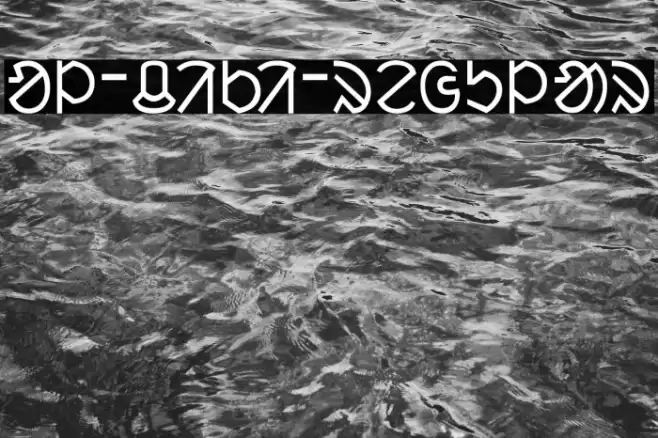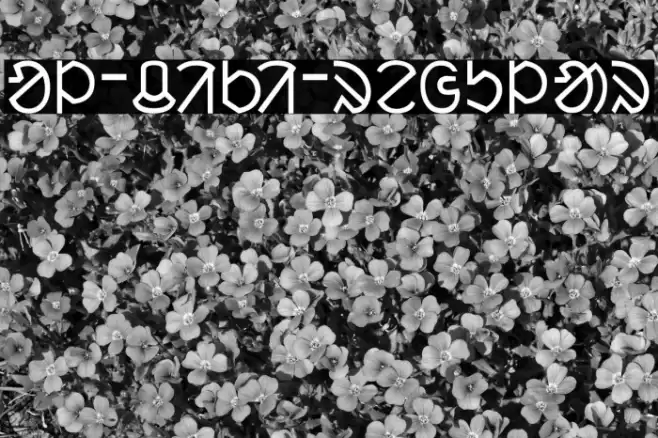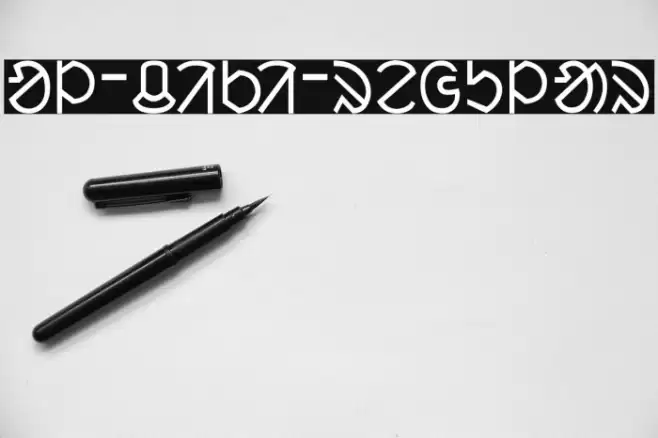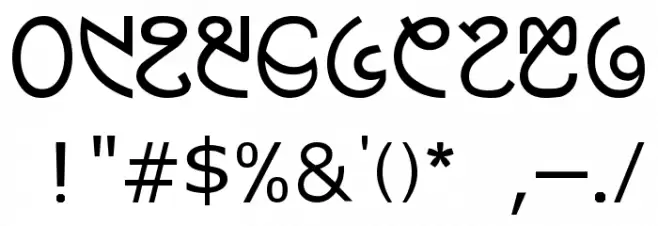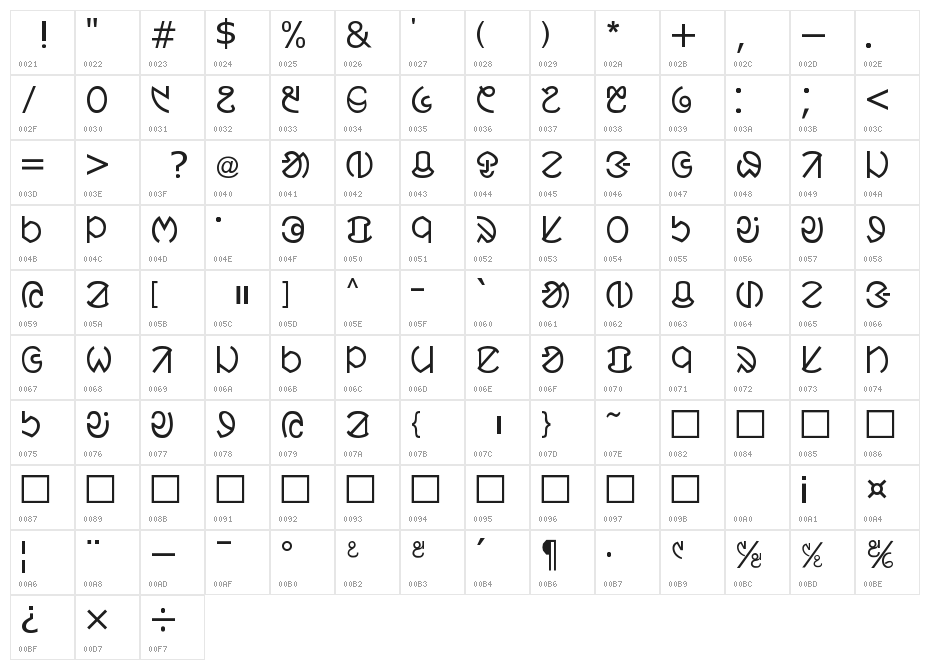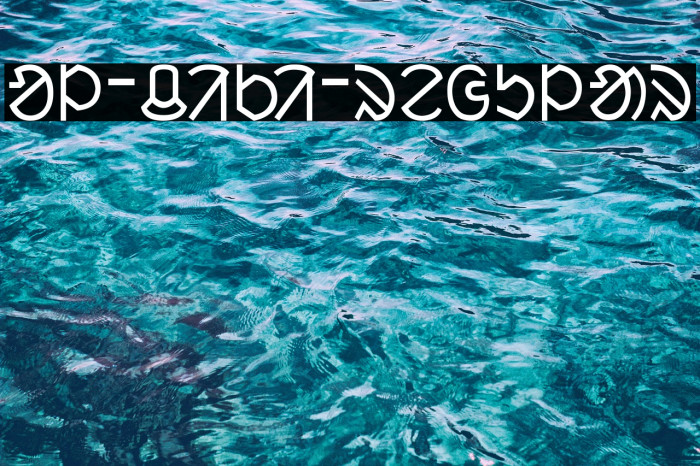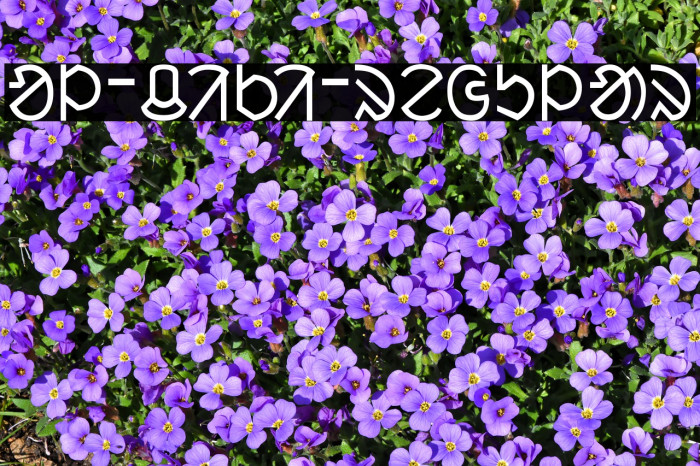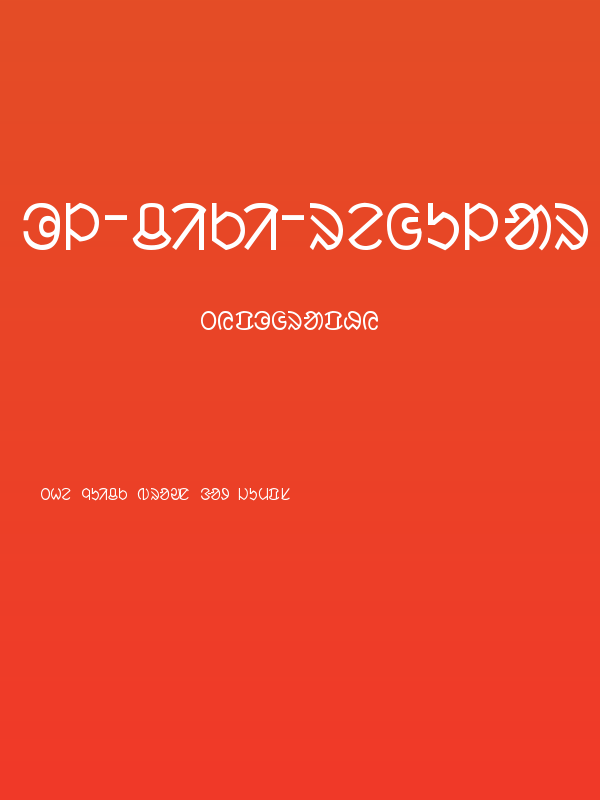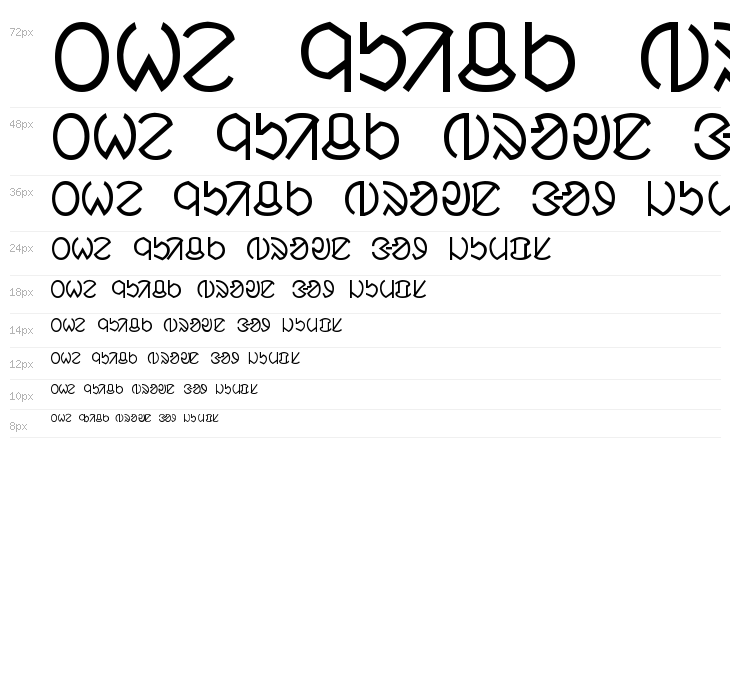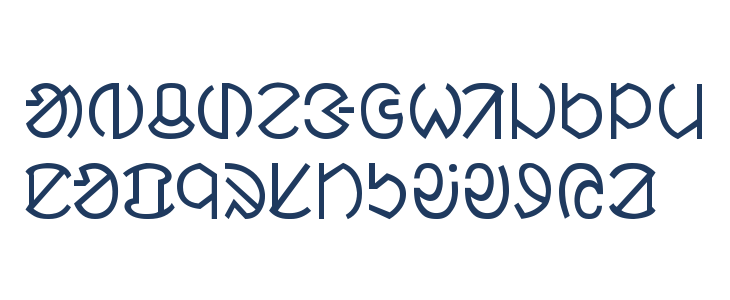
ol_ciki_regular Font
ol_ciki_regular Description
This font features a unique and decorative style, characterized by its bold and curvaceous letterforms. The characters exhibit a playful and artistic flair, with a consistent stroke width that gives it a cohesive appearance. The font includes a full set of uppercase and lowercase letters, numerals, and a variety of special characters. Its design is reminiscent of traditional scripts, yet it maintains a modern twist with its smooth curves and clean lines. The overall aesthetic is both eye-catching and versatile, making it suitable for a range of creative applications.
A bold, decorative font with curvaceous and artistic letterforms from Uncategorized fonts.